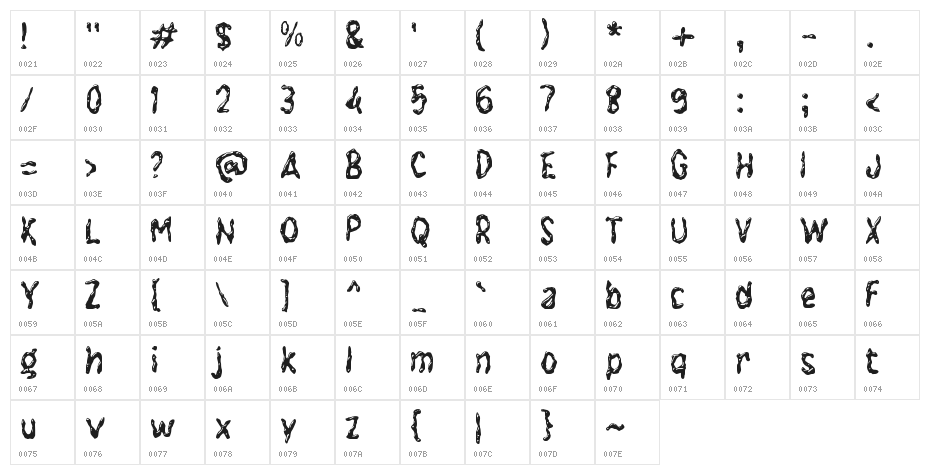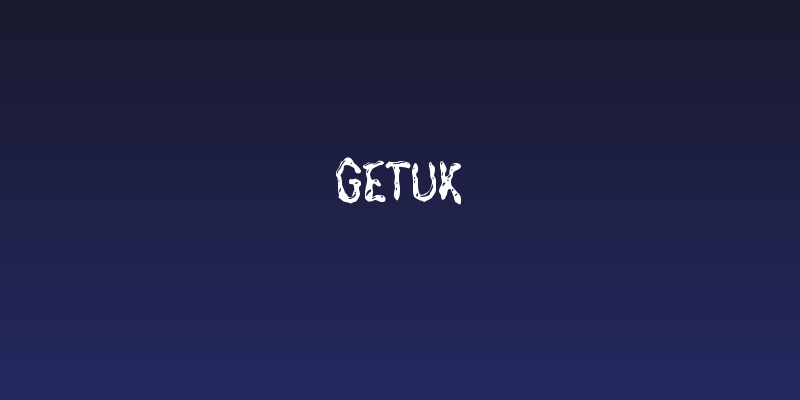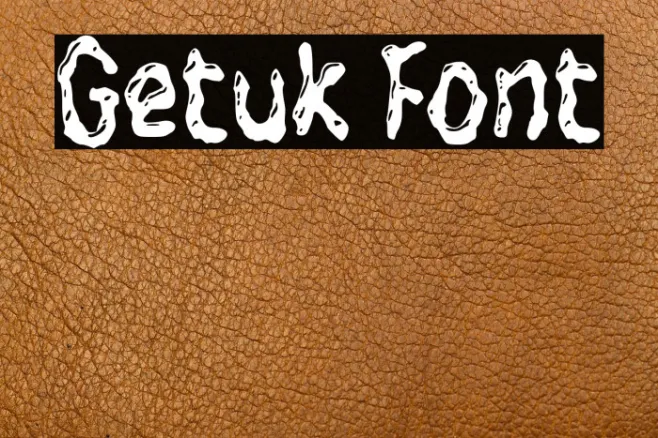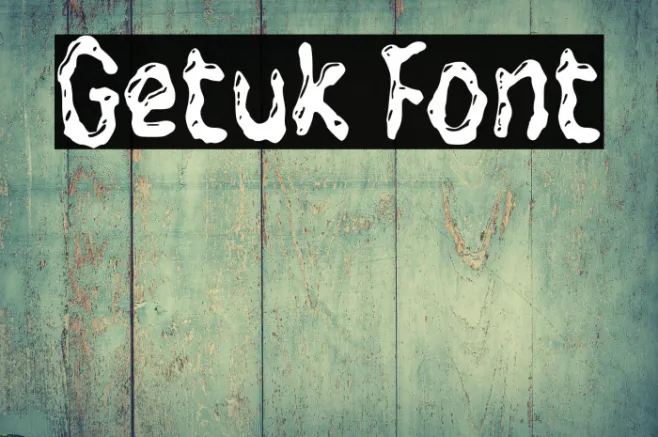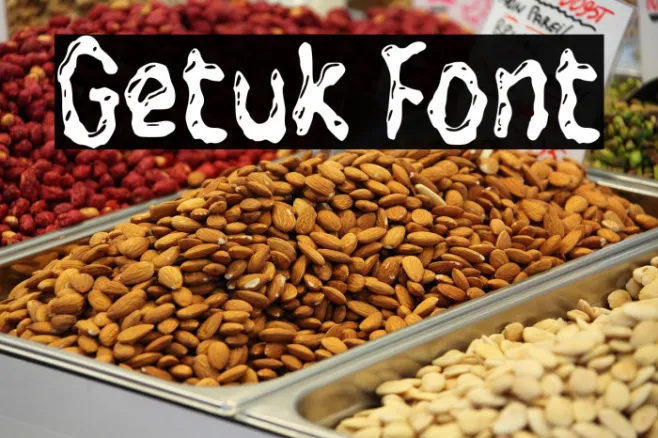
Getuk Font
Getuk Description
This font features a highly decorative and unique style, characterized by its irregular, organic shapes that resemble dripping or melting forms. The letters have a playful and dynamic appearance, with varying stroke thickness that adds to the visual interest. The overall design is bold and eye-catching, making it suitable for creative and unconventional projects. The font includes a full set of uppercase and lowercase letters, numbers, and a variety of special characters, ensuring versatility in its application.
| Proposed Projects | Ideal for Halloween-themed designs, artistic posters, album covers, and any project requiring a bold, unconventional typeface. |